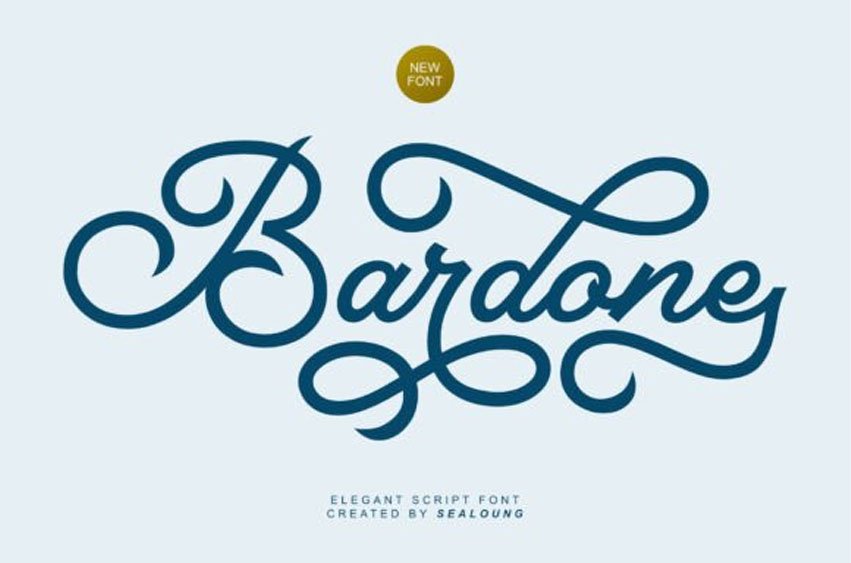
Bardone Font is a modern casual script font with an elegant touch, perfect for a wide range of creative projects such as crafting, branding, logos, invitations, stationery, wedding designs, social media posts, advertisements, product packaging, product designs, labels, posters, photography, special events, and more.